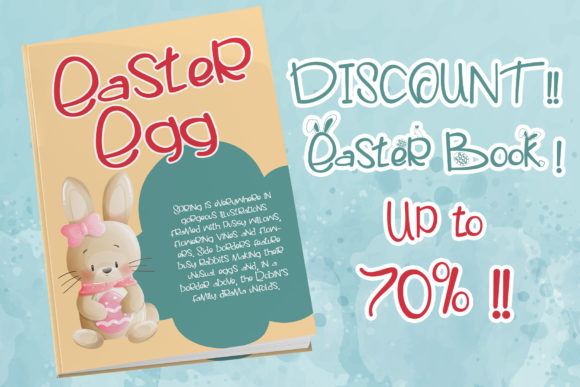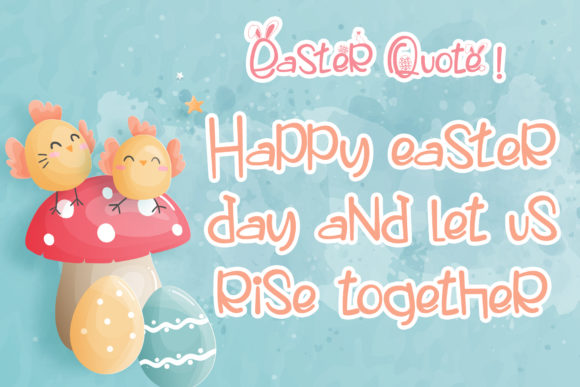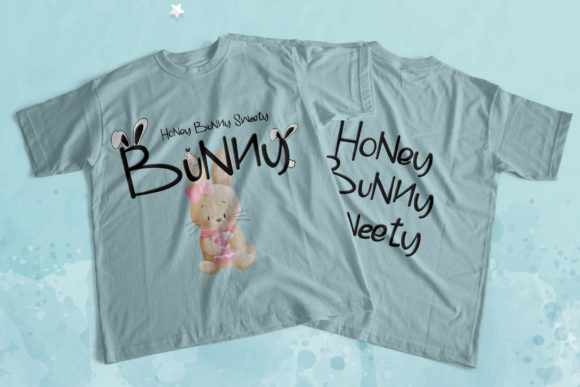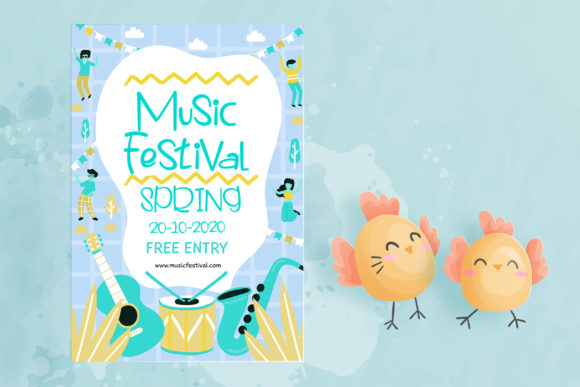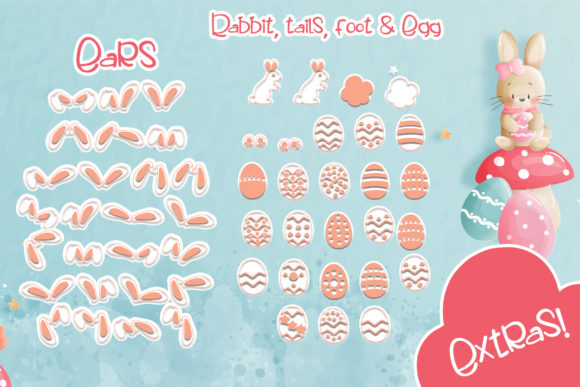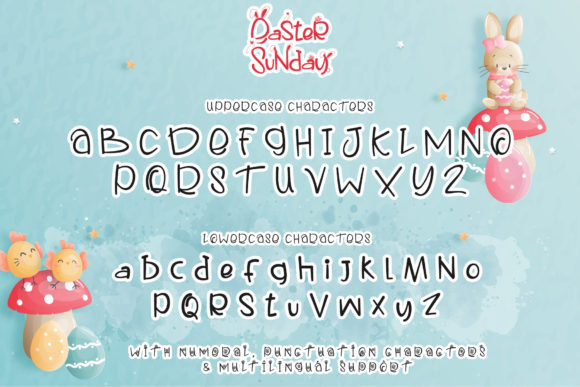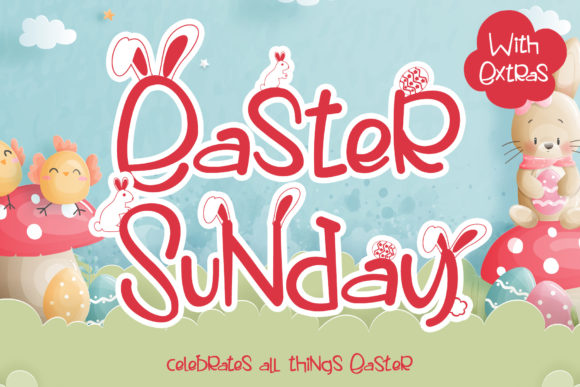
Easter Sunday Font: Add a Touch of Whimsy to Your Designs
Easter Sunday is just around the corner, and what better way to celebrate than with a unique and festive font? Look no further than the Easter Sunday Font, a fun script jam-packed with flourishes and additions to make each of your designs look completely unique. In this article, we’ll dive into the features and benefits of this exciting font, and explore how you can use it to add some Easter details to your work.
What is Easter Sunday Font?
The Easter Sunday Font is a script font designed to bring a touch of whimsy and fun to your designs. With its playful and curly letters, this font is perfect for creating eye-catching Easter-themed designs, from greeting cards and invitations to social media graphics and blog posts. The font comes with a range of flourishes and additions, including Easter-themed characters like eggs, bunnies, and flowers, making it easy to add a touch of Easter magic to your work.
Key Features of Easter Sunday Font
- Easy to Read: Despite its playful and curly design, the Easter Sunday Font is surprisingly easy to read, making it perfect for use in a variety of designs, from body text to headings.
- Easter-themed Characters: The font comes with a range of Easter-themed characters, including eggs, bunnies, and flowers, making it easy to add a touch of Easter magic to your work.
- Flourishes and Additions: The font is jam-packed with flourishes and additions, allowing you to create unique and eye-catching designs that will stand out from the crowd.
How to Use Easter Sunday Font in Your Designs
The Easter Sunday Font is versatile and can be used in a variety of designs, from digital to print. Here are a few ideas to get you started:
- Easter Greeting Cards: Create eye-catching Easter greeting cards using the Easter Sunday Font. Add some Easter-themed characters, like eggs and bunnies, to make your cards truly special.
- Social Media Graphics: Use the Easter Sunday Font to create social media graphics that will stand out from the crowd. Add some Easter-themed characters and flourishes to make your graphics truly unique.
- Blog Posts: Add a touch of Easter magic to your blog posts using the Easter Sunday Font. Use the font to create headings and titles that will grab your readers’ attention.
- Crafting Projects: The Easter Sunday Font is also perfect for crafters. Use the font to create custom titles and labels for your Easter-themed crafting projects, like Easter baskets and decorations.
Tips and Tricks for Using Easter Sunday Font
Here are a few tips and tricks to help you get the most out of the Easter Sunday Font:
- Experiment with Different Sizes: The Easter Sunday Font looks great in a variety of sizes, from small and delicate to large and bold. Experiment with different sizes to find the one that works best for your design.
- Combine with Other Fonts: The Easter Sunday Font pairs well with other fonts, especially sans-serif fonts. Experiment with combining the Easter Sunday Font with other fonts to create unique and eye-catching designs.
- Add Easter-themed Characters: The Easter Sunday Font comes with a range of Easter-themed characters, like eggs and bunnies. Add these characters to your designs to make them truly special.